When it comes to getting a tattoo, choosing the right font is just as important as selecting the design itself. The font you choose can make or break the overall look of your tattoo, and can even convey a different meaning than what you intended. That’s why it’s essential to choose a font that not only looks great but also speaks to your style. From bold and edgy to delicate and intricate, Canva’s tattoo fonts offer something for everyone. In this article, we’ll explore 15 unique tattoo fonts on Canva that will make your ink stand out and help you create a tattoo design that you’ll love for years to come.
1. Amsterdam One
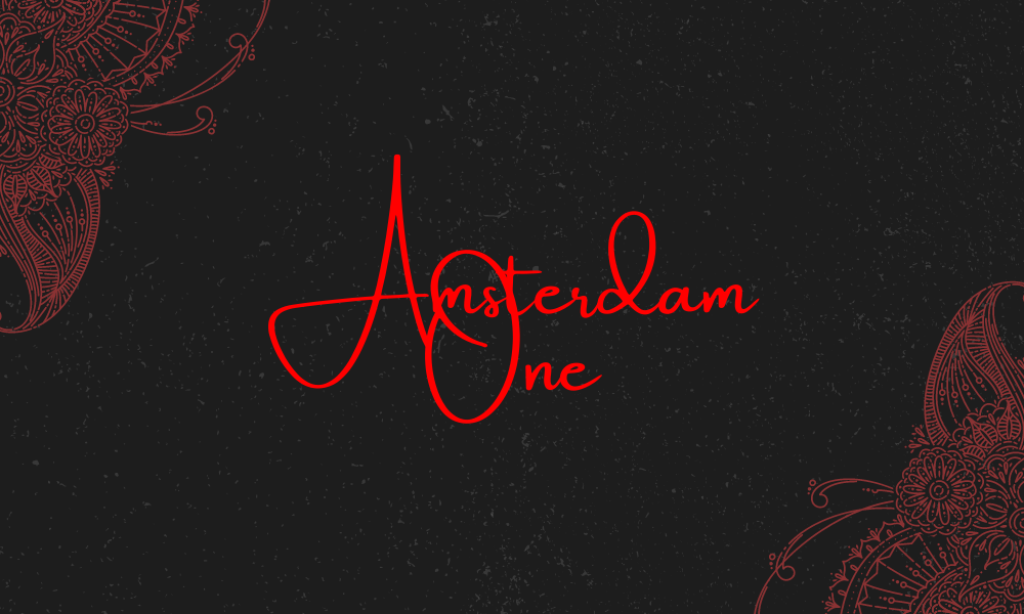
Why it is a unique Tatoo font: This elegant script font features quick, energetic strokes that mimic handwriting. Its unique flow and casual style make it ideal for tattoos that need a personal, yet chic touch.
2. Cantora One
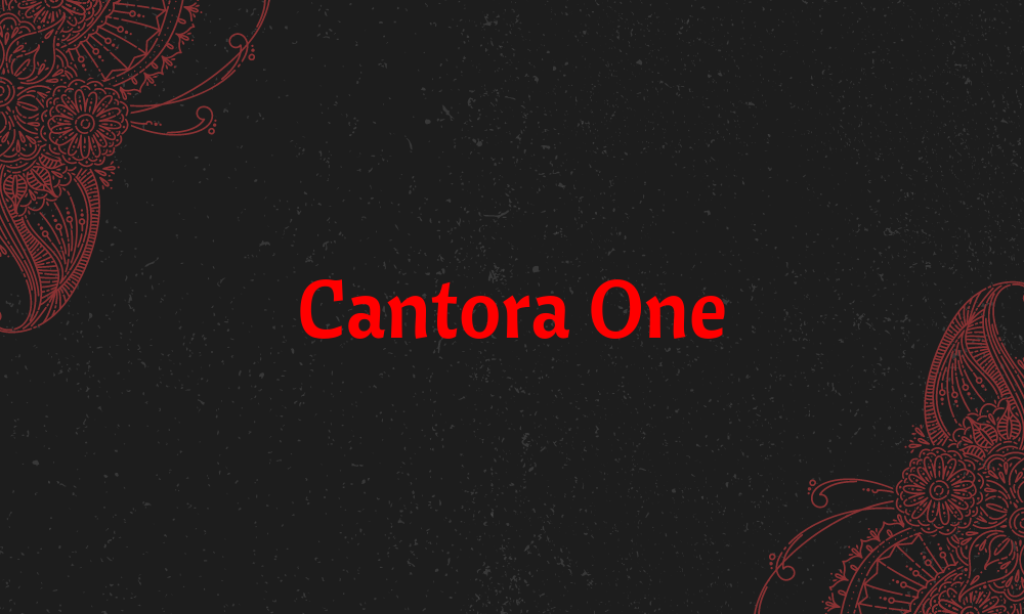
Why it is a unique Tatoo font: This semi-sans serif font balances character and clarity, making it versatile for both large and small tattoos. Its slightly rounded corners offer a soft, approachable feel, standing out for legibility and style.
3. EFCO Brookshire
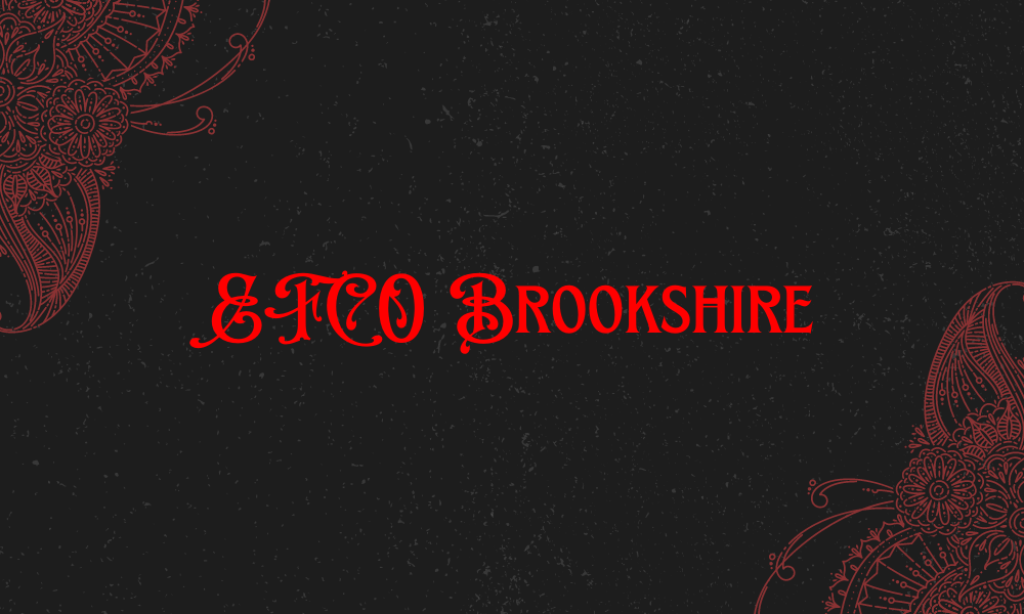
Why it is a unique Tatoo font: This serif font exudes a classic, timeless vibe with its clean lines and refined curves. It’s perfect for those who want their tattoo to have a traditional feel with a modern twist.
4. Great Vibes
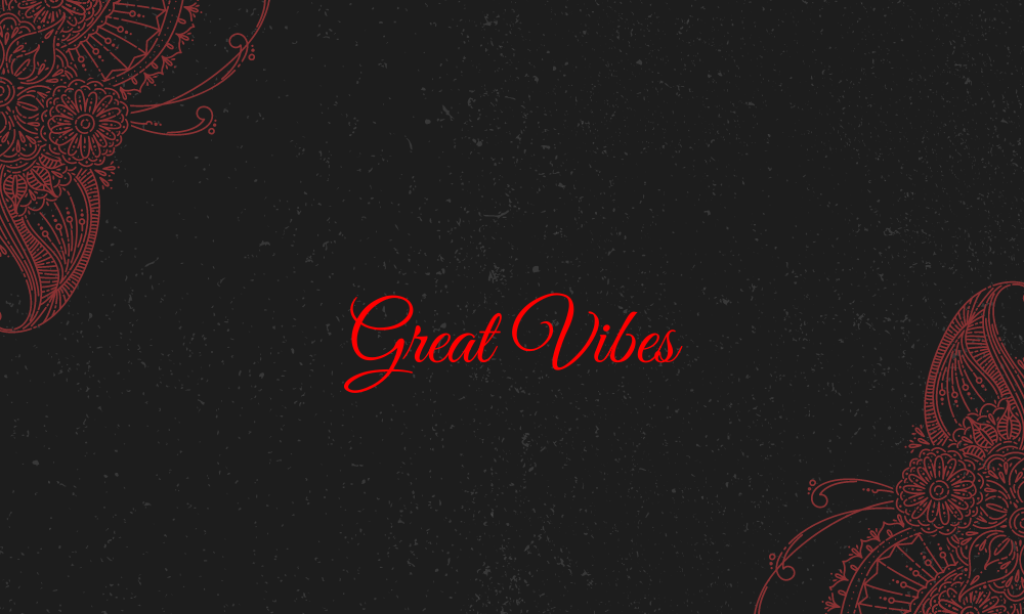
Why it is a unique Tatoo font: As a beautifully flowing script, Great Vibes adds an elegant and sophisticated flair to any tattoo. Its sweeping ascenders and descenders make it a fantastic choice for more ornate, eye-catching designs.
5. Halja
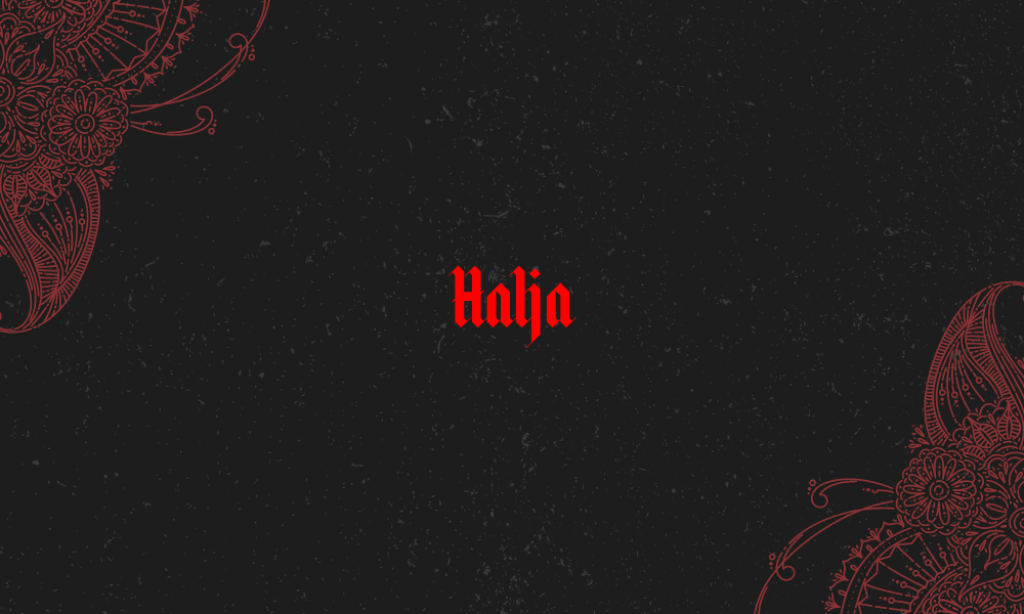
Why it is a unique Tatoo font: Halja is a blackletter font that channels the Gothic era with its dramatic, sharp edges. It’s ideal for statement tattoos that draw on historical or fantastical elements.
6. Layiji JaRaKeFadHang
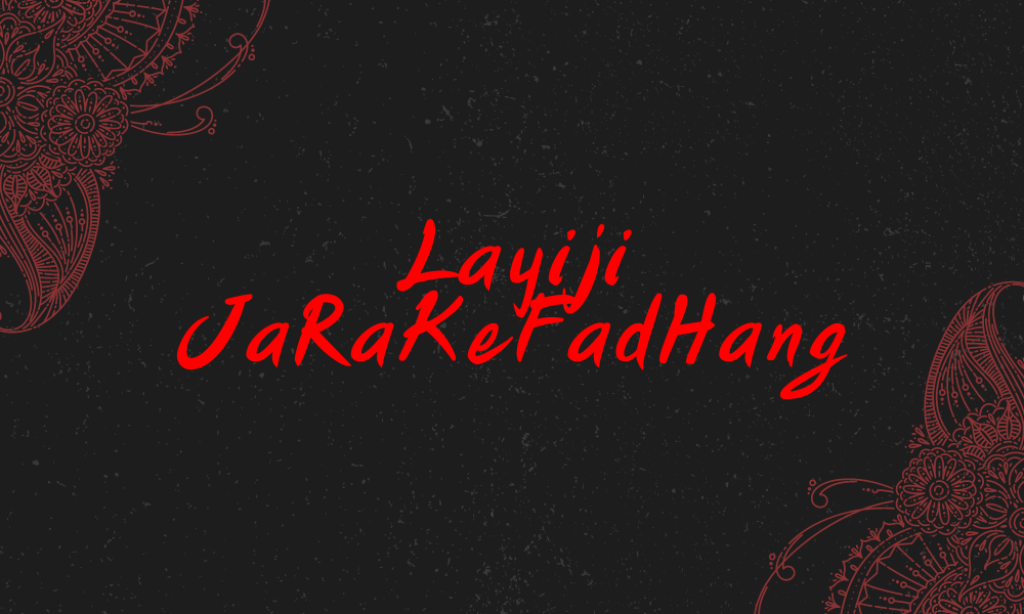
Why it is a unique Tatoo font: This font features an exotic, intricate style inspired by Thai calligraphy, making it unique for tattoos that honor heritage or seek a distinct, ornamental look.
7. Letteria Pro
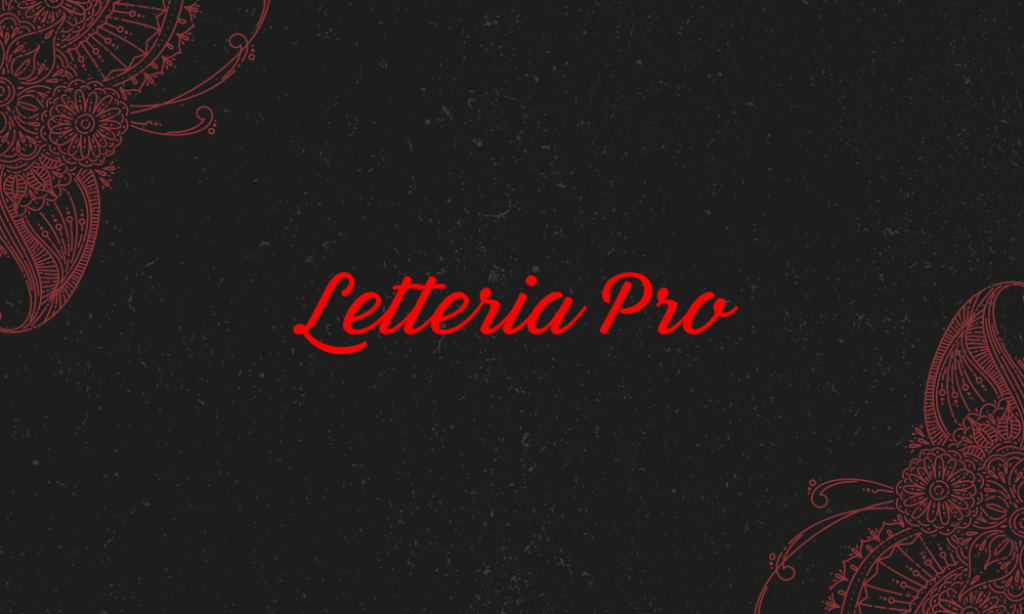
Why it is a unique Tatoo font: This modern script font combines calligraphy with a contemporary twist. Its fluid, cohesive strokes are perfect for expressive tattoos that convey personal messages or quotes.
8. Lj Studios MB
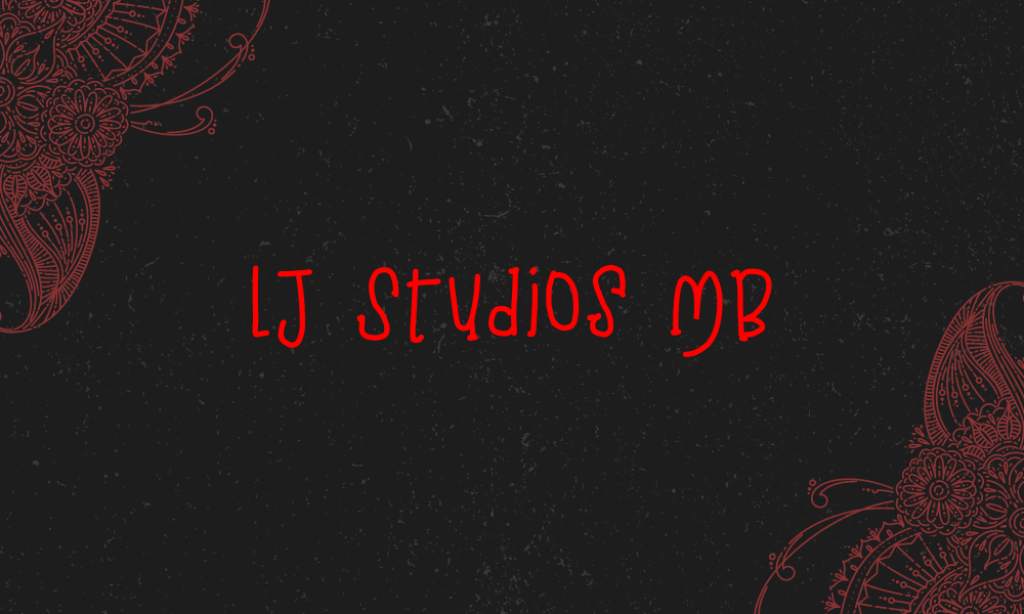
Why it is a unique Tatoo font: With its bold, impactful style, this font is great for tattoos that aim to make a strong statement. It’s particularly suited for single-word tattoos due to its attention-grabbing effect.
9. Obra Letra
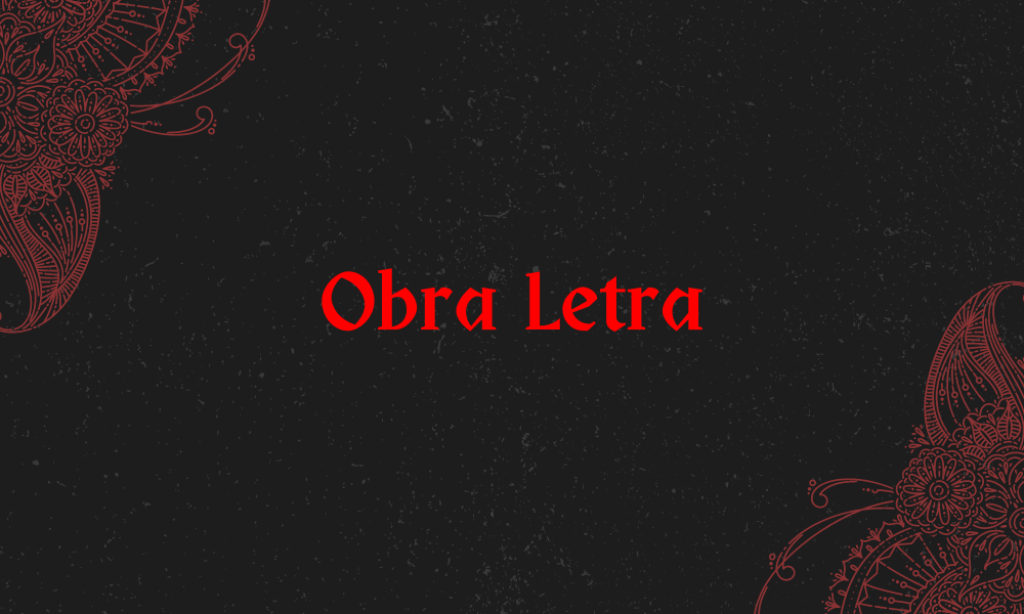
Why it is a unique Tatoo font: This serif font brings a touch of sophistication and old-world elegance, ideal for literary quotes or classical art-inspired tattoos.
10. Pirata One
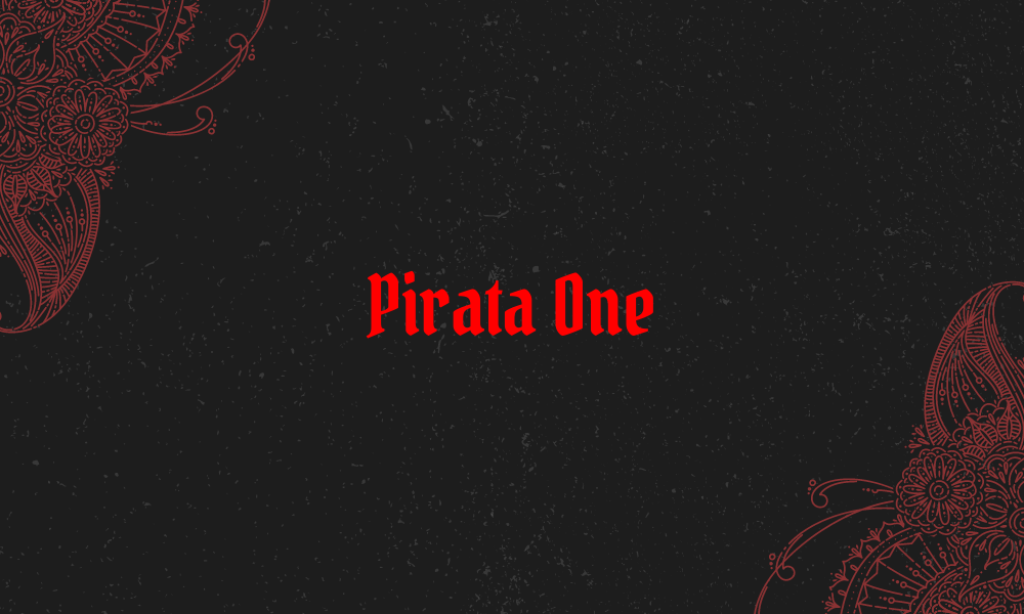
Why it is a unique Tatoo font: Evoking a sense of adventure and ruggedness, Pirata One is a serif font that is perfect for nautical, pirate, or treasure-themed tattoos.
11. Portal
Why it is a unique Tatoo font: This sleek, futuristic font is perfect for science fiction and technology-themed tattoos. Its clean lines and minimalistic design make it visually striking in a modern context.
12. Tan Astoria
Why it is a unique Tatoo font: A delicate serif font that blends vintage charm with modern refinement, making it suitable for elegant and subtle tattoo designs.
13. Tan Pearl
Why it is a unique Tatoo font: This font features gentle, rounded edges and a light, airy feel, ideal for tattoos that emphasize beauty and femininity.
14. True Typewriter
Why it is a unique Tatoo font: This font mimics the classic look of typewritten text, offering a nostalgic feel that’s perfect for memorial tattoos or phrases with a personal historical significance.
15. UnifrakturMaguntia
Why it is a unique Tatoo font: A traditional blackletter font that captures the essence of historical European manuscripts. It’s perfect for tattoos that aim to evoke an old-world, mystical feel.